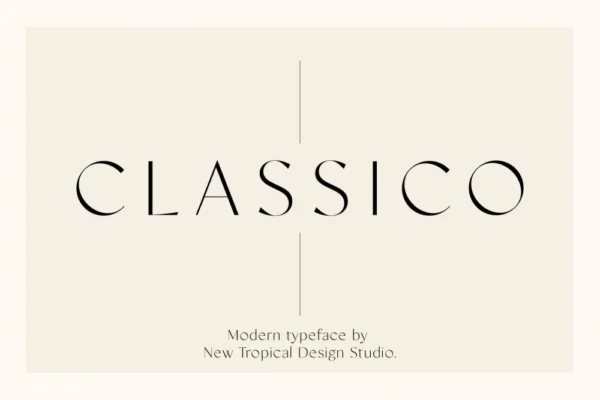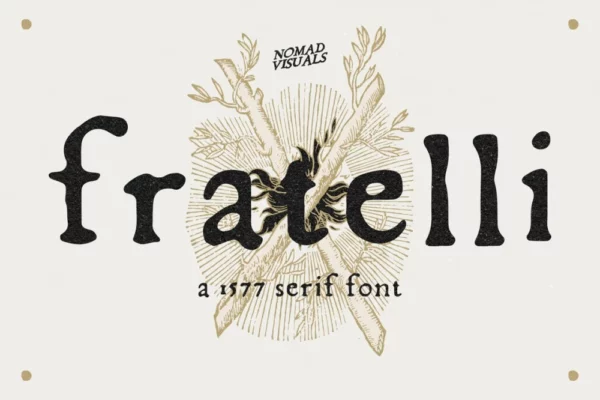
30+ Best Modern Serif Fonts for 2023
The best modern serif fonts can instantly transform the average-looking text into designs that tell a tale.
That factored in, picking which serifs help you articulate a thought can be challenging if you don’t know where to look. And while the internet presents endless options, it can be overwhelming to go through thousands of fonts! This is precisely why we rounded up the best serif fonts available online today!
But before we go through the list… What are serif fonts?
A serif implies a stylish stroke at the end of each typography character you come across. In other words, serif fonts have decorative ends in their stems, adding drama and personality right away.
Following that logic, sans serif fonts are characters whose ends are particularly sharp and without exaggerated corners. But why does this matter?
Typography helps convey a message. Stereotypically formal fonts are best used for documents and office work while commercially creative fonts help add flair to marketing designs and promotional materials, for example.
All of that factored in, let’s check out the best modern serif fonts you can find on the internet today!
30+ Best Modern Serif Fonts
Bellerine Modern Serif
There are plenty of reasons to appreciate Bellerine Modern Serif but one of the most obvious ones is how it’s specifically designed for creative pursuits. Its exaggerated stems and pointy ends make it stellar for marketing projects. Suitable for logos, branding, and also artsy headlines, this modern serif font is cute and designed to stand out!
Loonger
Modern Serif Font
Loonger is the kind of font you’d see on magazines and books as headlines. It’s one of the more formal-looking options on the list too. Packed with just the right blend of curves and rounded corners, there’s a lot to appreciate in this pack’s overall aesthetic. Clean, classy, and captivating, what’s not to like?
Lagmaq Unique Serif Font
If what you’re looking for is odd and outlandish, then Lagmaq is designed to serve. Featuring unpredictable lines and uneven structures, this serif is perfect for out-of-the-box projects and distinct approaches to otherwise traditional visuals. Big, unique, and every bit captivating, this font pick is a statement in itself.
Clifton — Modern Serif Typeface
Clifton - Modern Serif Typeface
Clifton‘s aesthetic combines funky and classy, sporting both traditional influences with contemporary elements. Youthful, semi-casual, and playful, this f0nt is a bundle perfect for a variety of projects! It packs lower and uppercase letters, too, making this a fantastic fit for both text-heavy projects and headline-only requirements alike.
Bellabio Typeface
Another non-conforming font pack here is Bellabio. Mixed with odd-looking elements paired with exaggerated stems and slanted corners, this pack is strikingly gorgeous. Great for headlines, logos, branding efforts, and other similar projects, this all-capital font set is sure to help spice up your visuals.
Tquild — Serif Font
Tquild – Serif Font
Tquild is an elegant offering. Featuring slanted tips and thick structures, each character here packs a unique look. Legible, loud, and sophisticated, letters here are available in both uppercase and lowercase.
Florentino — Calligraphic Serif
Florentino - Calligraphic Serif
Florentino is a calligraphy-inspired font that offers elements reminiscent of the Renaissance era. Available in italic and regular weights, this pick is both clean and creative without being too dramatic. It’s fresh, timeless, and visually appealing for reasons that require no long explanations.
Fleur Display — Sans/Serif Font Duo
Fleur Display - Sans:Serif Font Duo
Fleur is a pack that carries both sans-serif and serif characters. Suitable for wallpapers, postcards, social media art cards, and other creative forms of printable works, there are plenty of projects you can complete with a bundle as stylish and striking as this one. Combining slanted and wobbly lines, this one’s arguably one of the clearer standouts here.
Cammron Serif Font Family
Cammron is one of the more professional-looking serifs on the list, sporting straight lines, and slender structures, each character is legible and straightforward. No bells and whistles here. Just traditional letters that don’t defy the odds. If you’re looking for a bundle that best improves corporate efforts, you can’t go wrong with this one.
Delores — A Modern Serif Font
Delores - A Modern Serif Font
Delores is another font pack that’s perfect for everyday formal-looking projects like work files and school headlines. Extending tasteful stems and predictable corners, characters here are subtle, slow, and easy to appreciate.
Allenoire — Modern Bold Serif Font
Allenoire - Modern Bold Serif Font
Allenoire offers a retro vibe. Oozing with fresh and vibrant energy, this aesthetic is one you’d typically see in social media art cards with quotes in them, if not trendy shirt designs that thrive in e-commerce platforms. Made for young audiences, this bundle is best used for projects that target Gen Z audiences.
Addington CF | beautiful serif font family
There’s something about Addington that reminds us of advocacy-driven media agencies that post quote cards on social media. Much like the kind of posts we typically see on Vice and Vox, this bundle offers elegant characters that allow certain words to be emphasized without being over the top. If you’re one who’s most likely to keep putting out quotes on the ‘gram, then this one’s for you.
Portent Serif Font
Portent has such a distinct look that it’s hard not to be captivated by it. Featuring a combination of curves and wobbly-like gaps in many of its characters, this font pack is definitely a standout without trying too hard. Packaged as a classy serif font, this kit comes with uppercase and lowercase letters, making this a decent pick for a wide array of projects.
Remind — Modern Serif Font
Remind-Modern Serif Font
Remind is a dainty font pack that makes clever use of wide space. Displaying subtle corners and boxy structures, characters here are easy to read and appreciate.
Mondega — Modern Serif Font
Mondega - Modern Serif Font
Mondega is a visual treat. At first glance, you’ll notice its stylish alternates, featuring elegant curves and bent lines in some of the most unpredictable areas. As a result, this font set is superb for projects that demand out-of-the-box serifs. Great for headlines, brand initiatives, and marketing efforts, this one’s a sure winner in countless ways.
Frasha Modern Serif
Of the many things we can appreciate about Frasha, its elegant stems and cohesive aesthetic are the top two. Packed with both uppercase and lowercase letters, this modern display serif is beautiful to look at and light on the eyes. Whether you’re shopping for chunky display fonts for headlines or upscale-leaning visual solutions for premium brand projects, this pick won’t disappoint.
Céleri — Modern Serif
Céleri - Modern Serif
Referred to as a modern and luxury serif, Céleri features slender lines for most part of its characters except the stems. As if bursting into almost circles, the letters in this set do a swell job of combining classy and quirky. A spectacular choice for a wide array of projects, this will thrive most in branding and packaging efforts.
Caustics | Modern Serif Typeface
Caustics is a trippy font pack that features wavy lines and odd-looking characters. Perfect for inventive approaches to traditional media, this pack is an awesome option for book designs, movie posters, social media art cards, and a whole lot more!
Avocalipss — Modern Serif Font
Avocalipss - Modern Serif Font
Avocalipss is a modern serif that exists to surprise. Perfect for posters, stickers, merchandise, and other similar projects, this pick feels thematic and loud. Featuring thick structures and exaggerated curves, it’s easy to understand why this pack is a staple to hundreds of artists.
Fogie — Modern Serif Font
Fogie – Modern Serif Font
Are you looking for a modern serif with multiple weights? Perhaps Fogie is what your project needs. Just the right balance of boxy and slender, this familiar-looking font pack is legible, clean, and great for both creative and corporate designs alike.
Classico — Modern Serif Font
Classico – Modern Serif Font
Classico‘s product description says it best. This font pack, “a unique mix between a serif and sans serif. A light, high contrast font that is perfect for feminine logo marks, fashion mastheads & editorial design.” If the vibe you’re going for involves slender-looking fonts, then this set is a robust contender.
Enwicken Modern Slab-Serif Typeface
Enwicken is a font that warrants a second look because of how nuanced and boxy the stems. in this bundle are. You don’t even have to look closely to see that the end of each character is punctuated by heavy box-like strokes. Suitable for fitness visuals and sports campaigns, this set is stereotypically masculine-leaning, although we’re sure this can thrive wherever you deem best!
Pamuci — Modern Slab Serif Typeface
Pamuci - Modern Slab Serif Typeface
Pamuci is a clean-looking slab serif that’s just as perfect for magazine headlines and social media art cards as it is for formal paperwork. Loaded with 4 different styles in multiple weights, this set is both striking and simple, easily making it a crowd favorite for reasons that no longer require lengthy explanations.
Bristain Rought Serif Font
Creatives who run a sticker shop or produce merchandise for a living will instantly fall in love with Bristain Rought Serif Font. Featuring all-capital letters, this grunge-inspired offering is perfect for signs, logos, labels, and many more! Sporting tasteful edges and elegant curves, this one’s easy to appreciate if you have a thing for rough-looking visuals.
Beau Rivage Modern Serif Font
Clearly, there’s no shortage of trippy font sets on the list, and Beau Rivage is proof of that. A stylish font set offering, this pick features characters that are reminiscent of flowing waters. Featuring wave-inspired lines, this bundle is guaranteed to provide the shock factor your project may need.
Fratelli — Serif Font + Extras
Fratelli – Serif Font + Extras
Like nuanced ink blots, Fratelli sports a droplet-inspired look, with characters featuring uneven yet thick lines. Reminiscent of mystery novels and newspaper headlines, this vintage-looking font bundle is good to go!
Loverica — Modern Condensed Serif
Loverica - Modern Condensed Serif
Loverica is an all-capital font pack that naturally radiates elegance and power. Perfect for headlines, posters, brand designs, and more, this flexible font set is a sophisticated contender, with numerous projects and efforts you can maximize this for.
Alohai Feminim Serif Typeface
If you’re the type to enjoy seeing gaps between characters, then Alohai is for you. Stereotypically feminine, this set has both uppercase and lowercase letters, making it a competent pack for a handful of design solutions.
Carola | Modern Serif
There is a striking resemblance between Carola and the font The New York Times uses for their headlines. That said, this font bundle makes a terrific choice for anyone looking to explore the digital publication space. Modern, lengthy, and legible, it’s easy to understand why a pick like this is downloaded tons of times.
Katrine | Modern Serif
in case you haven’t noticed, trendy fonts like Katrine are the talk of the town among designers. They’re cute, playful, and a delight to stare at. Combining conservative design elements and classy stems, this pack is great for anyone creating content as it makes for a stellar branding tool.
30+ Best Modern Serif Fonts for Distinctive Designs
Whatever your purpose is for picking a serif for your many projects, we’re sure you’ll find a set here that’ll resonate with an audience.